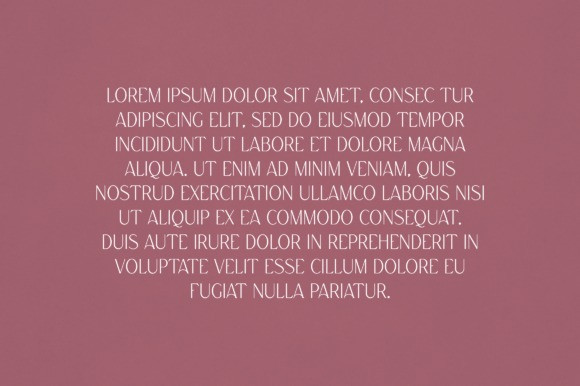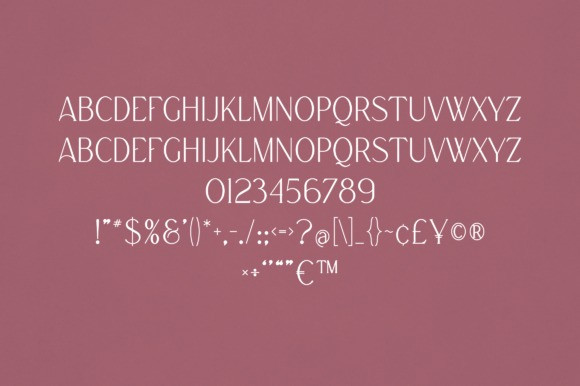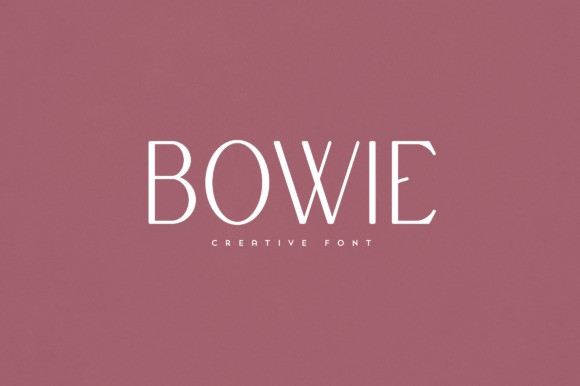
Bowie Font
Bowie Font is an elegant and versatile font that will make your typography truly unique! It will enchant every logo, branding, headline, or plain text!